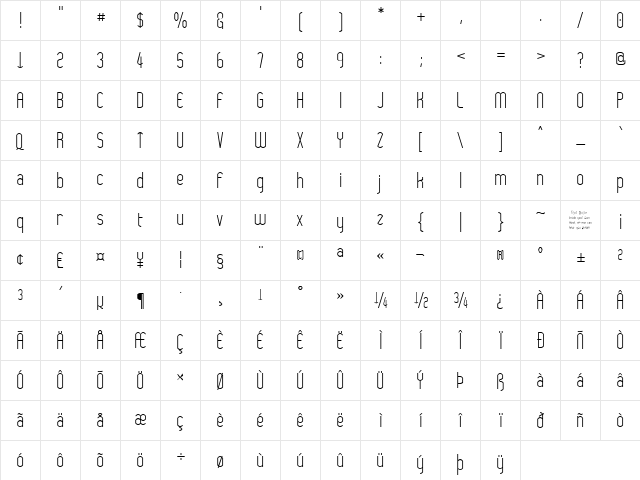
Wytherness Regular
Design Context for Wytherness Typeface
Wytherness offers clean, dependable letterforms without strong stylistic allegiance, making it a practical choice for designers who need flexibility.
Pro Tip: Pair Wytherness with a font of contrasting weight or personality to build a more expressive typographic hierarchy.